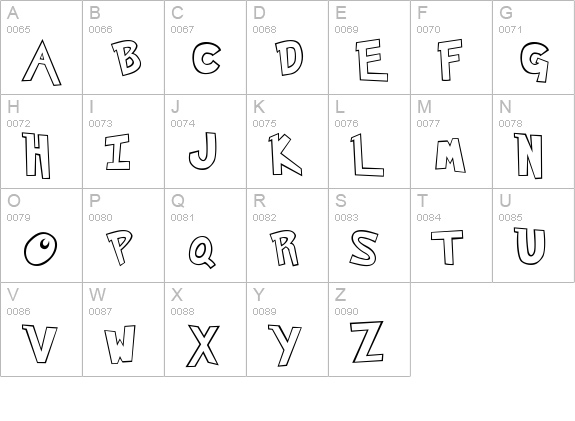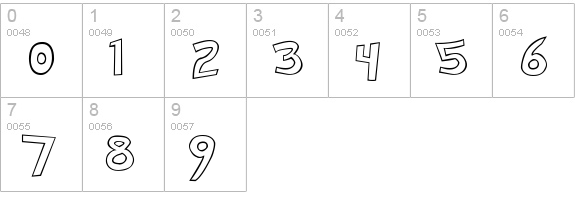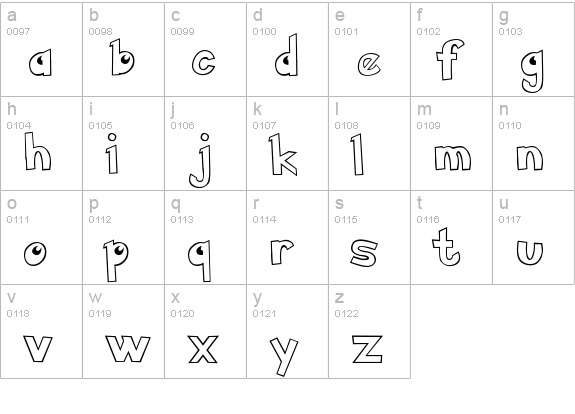
Pokemon Hollow Normal Font Details
Pokemon Hollow Normal is the standard, neutral variant in the Pokemon typeface family \xE2\x80\x94 well suited to general body text, paragraphs, and standard typographic work.
Introducing Pokemon Hollow Normal font - a captivating and versatile typeface that is sure to make your designs stand out! This unique font features a sleek and modern look with hollow letterforms that add a touch of sophistication to any project. Whether you're creating posters, logos, or social media graphics, Pokemon Hollow Normal font is the perfect choice to add a touch of elegance and style. What's even better is that this amazing font is available for free download at FontsMarket.com! With just a few clicks, you can add this stunning typeface to your font collection and start using it in your designs right away. Don't miss out on this fantastic opportunity to enhance your creative projects with Pokemon Hollow Normal font - download it for free today!